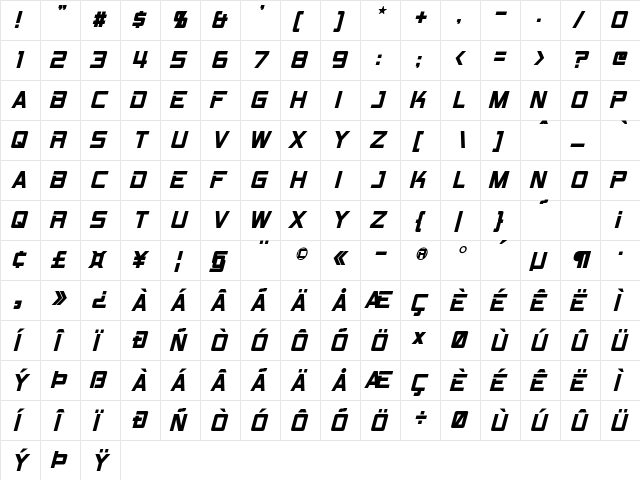
RPM Bold Italic Font Preview
| Foundry | Pixel Sagas |
| Designer | Neale Davidson |
Design Context for RPM Typeface
RPM takes a measured approach to typography — its balanced proportions and neutral character make it a reliable workhorse for both digital and print work. The dynamic lean of this cut emphasises speed and emphasis in any layout. The heavy weight commands attention and anchors typographic hierarchies.
Pro Tip: Try RPM for annotation and caption copy alongside an upright companion — the contrast in angle creates a dynamic but ordered typographic system.